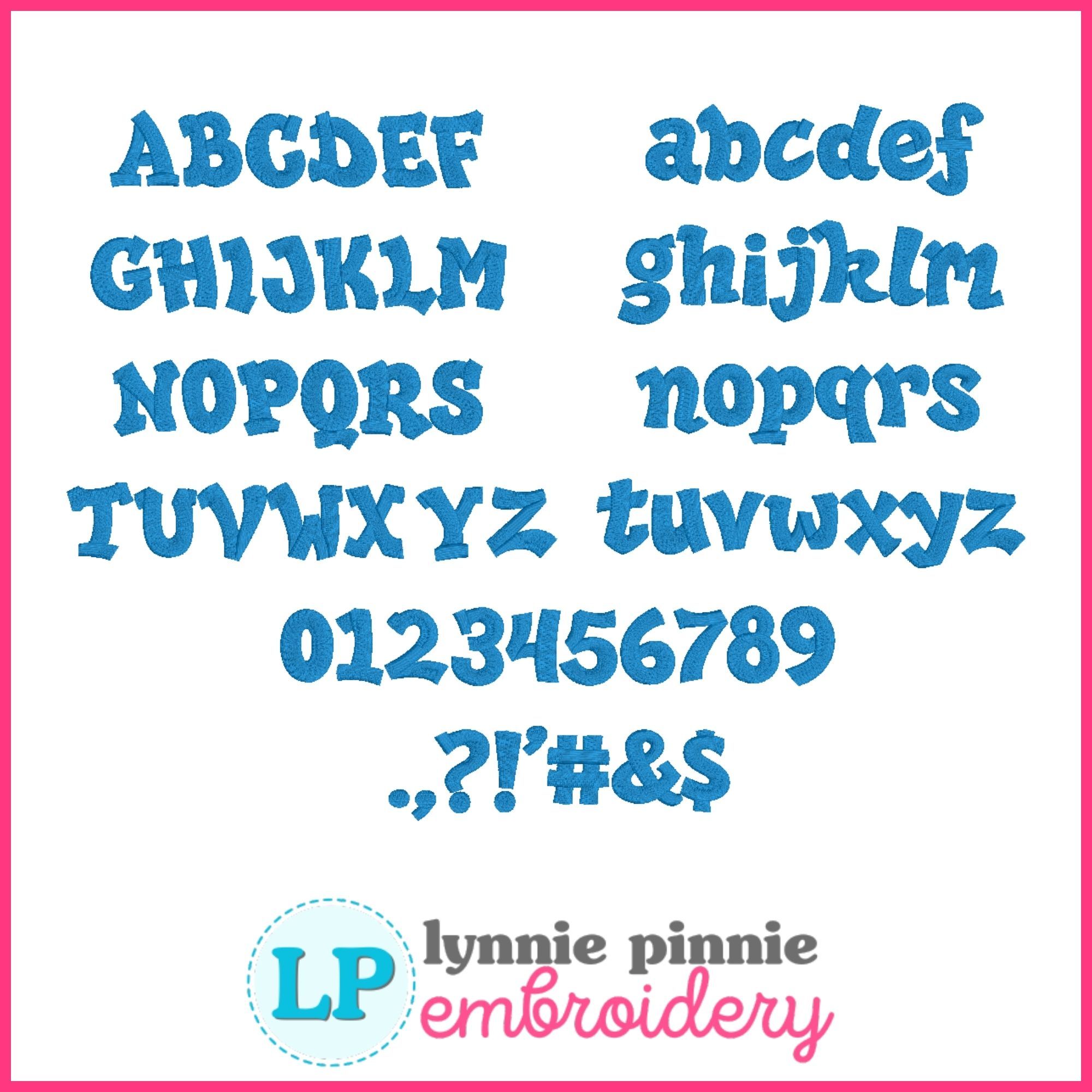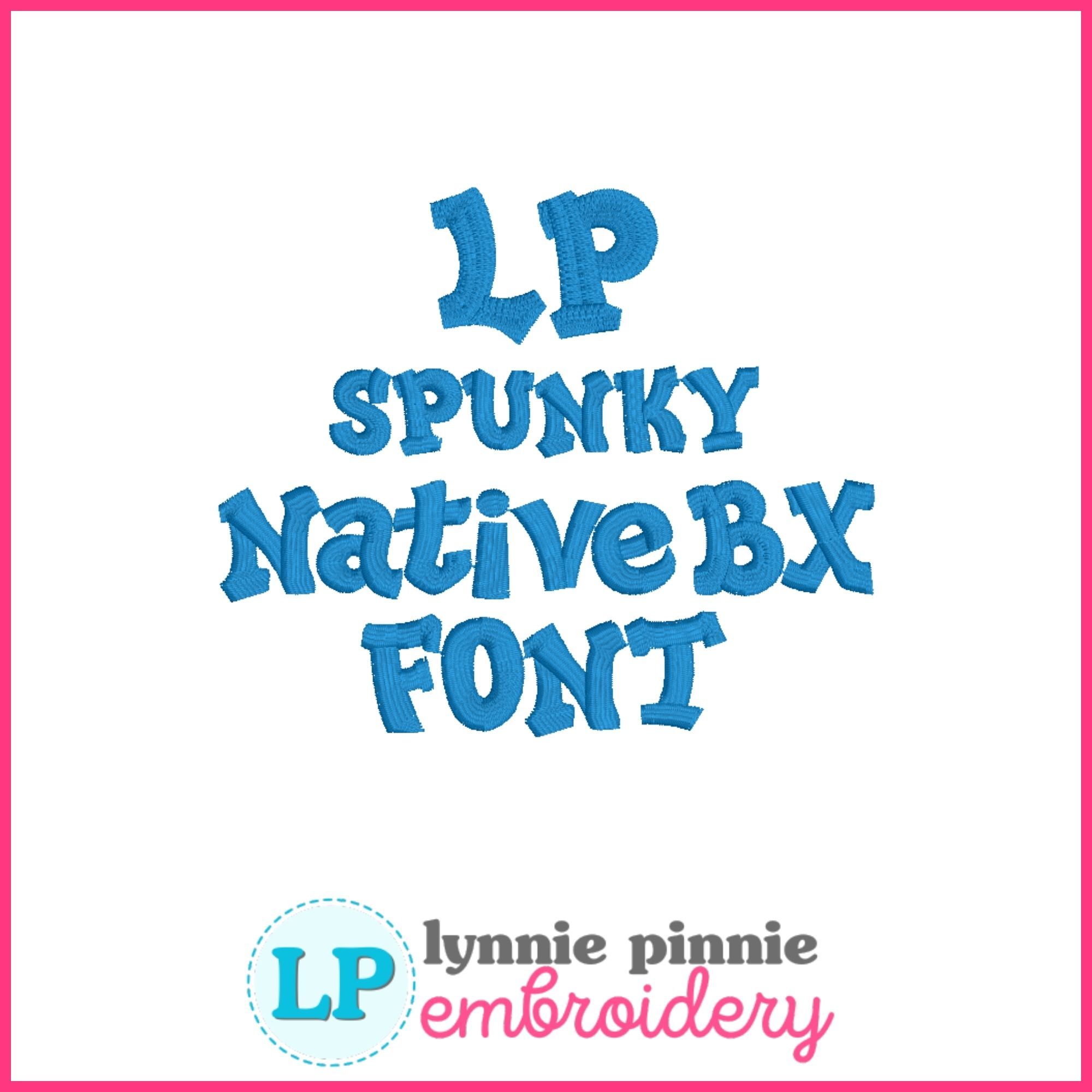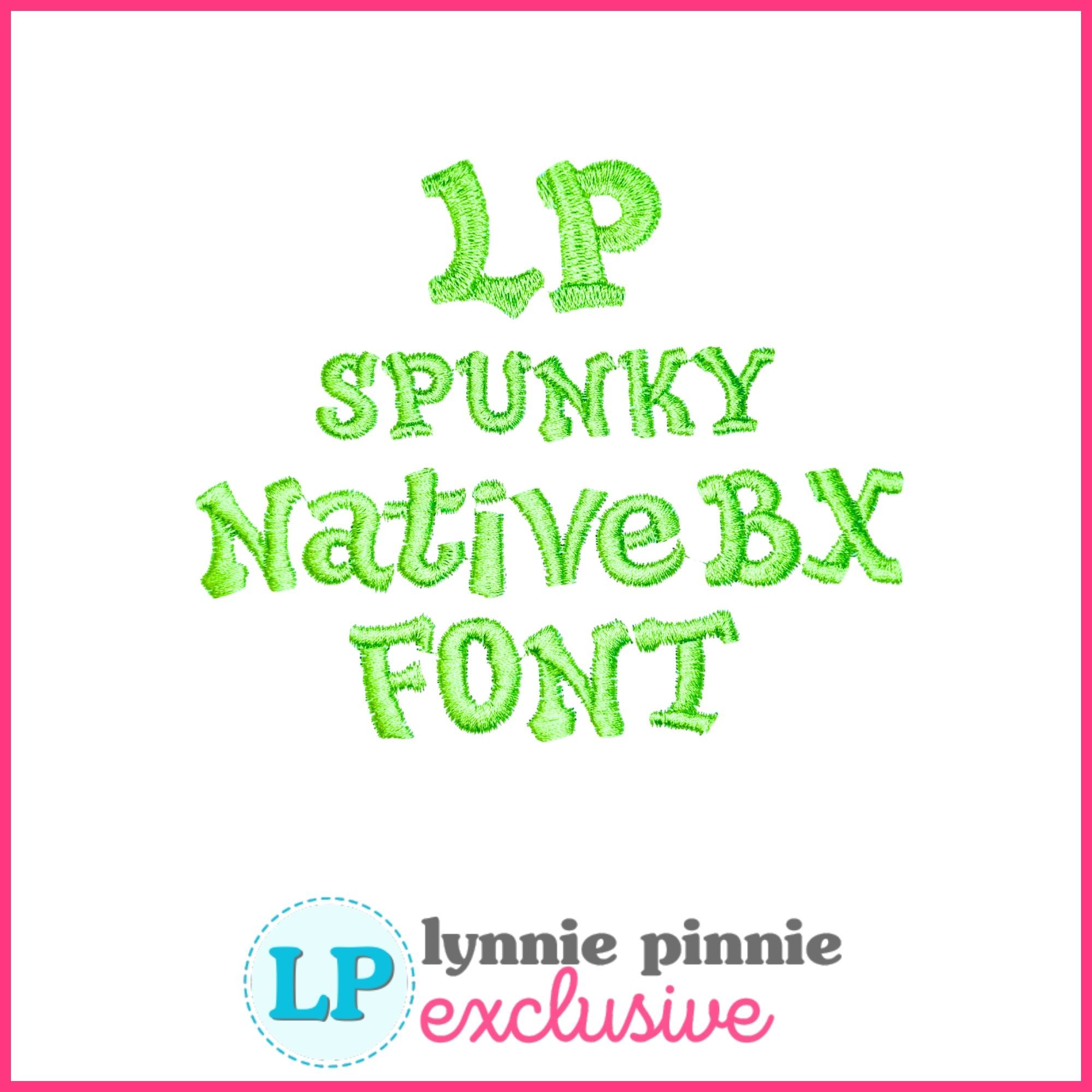
Add playful personality to your projects with our Spunky Satin Stitch Font! This fun and slightly whimsical machine embroidery font features bold satin stitching with a lively, hand-drawn feel—perfect for names, monograms, children’s items, boutique apparel, gifts, and personalized projects.
This font includes uppercase and lowercase letters, numbers, and punctuation, giving you maximum flexibility for a wide range of embroidery designs.
Spunky Satin coordinates perfectly with our newly refreshed and re-released Spunky Applique Font—originally released in 2007 and now updated with expanded features. Pair them together to create layered, high-impact designs with a cohesive look.